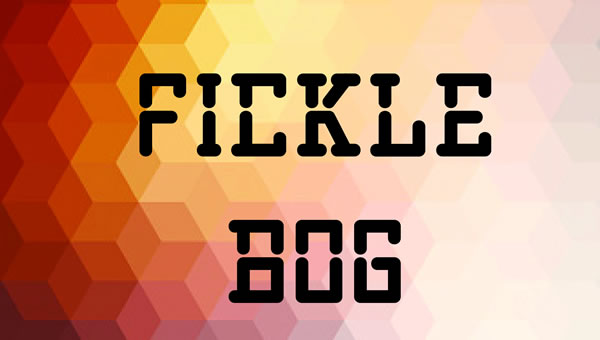
Behold the Kling font, a mesmerizing display font crafted by the ingenious Sai Aditya. This captivating creation invites you to embrace the allure of the unknown and transport your designs to a realm where imagination reigns supreme. Dare to explore the infinite possibilities that await you with the Kling font.
Indulge in the allure of its meticulously designed glyphs, each stroke infused with a captivating energy that commands attention. Whether you seek to craft logos that leave a lasting impression, design posters that ignite imaginations, or create website headers that captivate audiences, the Kling font is your steadfast companion.
The Kling font possesses an innate ability to elevate ordinary words into extraordinary expressions. Its bold presence exudes confidence and authority, while its playful undertones hint at a mischievous spirit. Unleash your creativity and let the Kling font guide you through a journey of visual storytelling that leaves your audience breathless.
The Kling font's versatility extends far beyond mere aesthetics. Its carefully balanced structure ensures effortless readability, even at smaller sizes. Whether you're designing for print or digital media, the Kling font adapts seamlessly, maintaining its impact and clarity across various platforms.
Embrace the Kling font and unlock a world of endless possibilities. Let your designs soar to new heights, captivating audiences with their boldness, playfulness, and unwavering readability. Experience the transformative power of the Kling font today and witness the birth of designs that resonate with your audience, leaving an indelible mark on their minds.